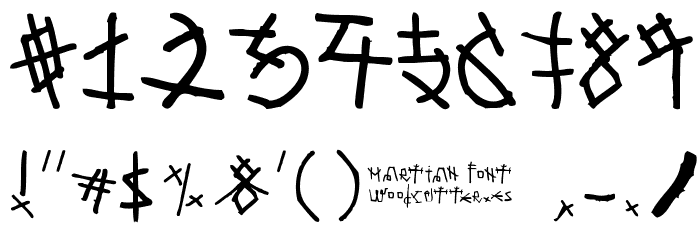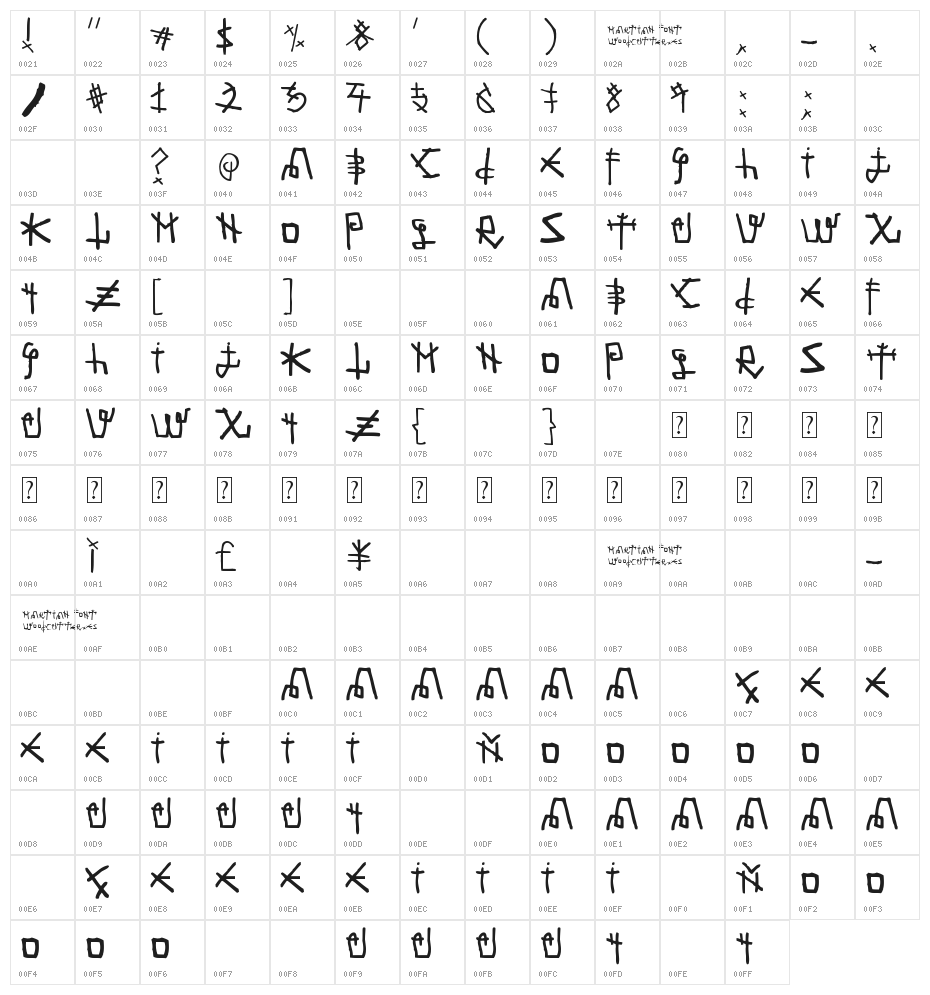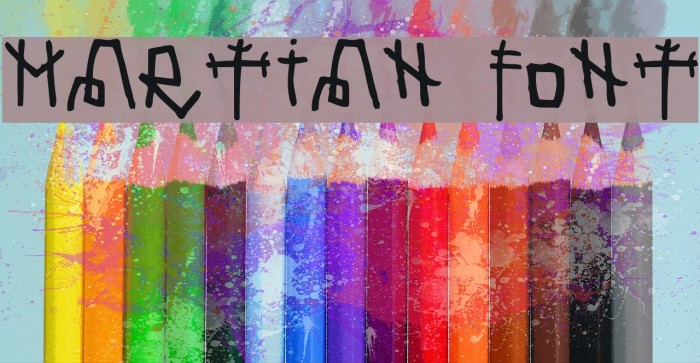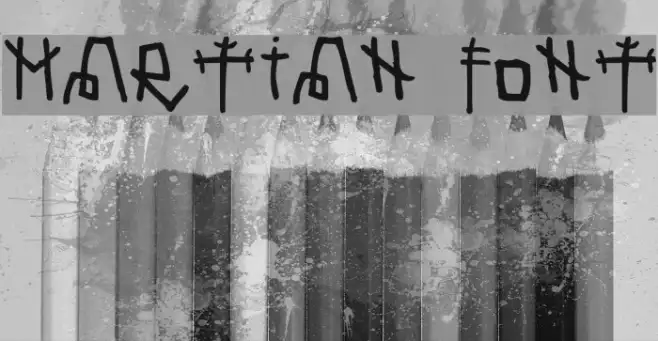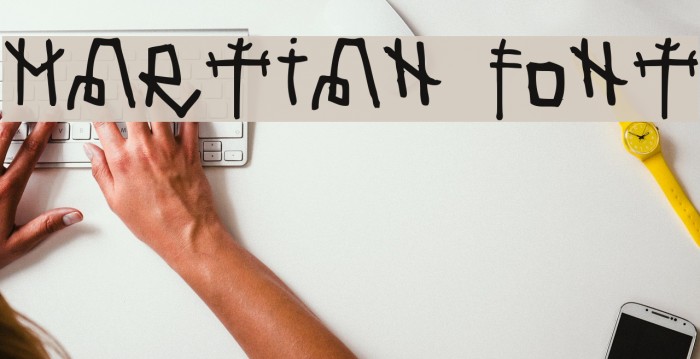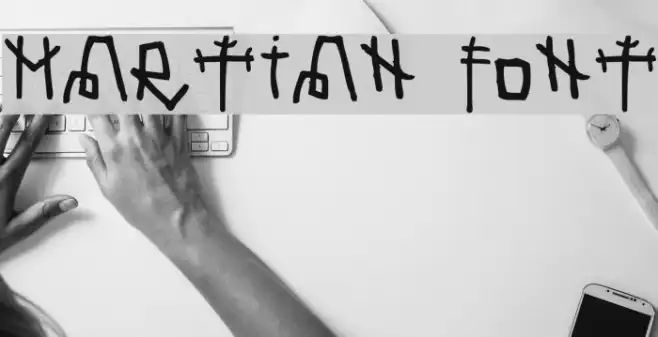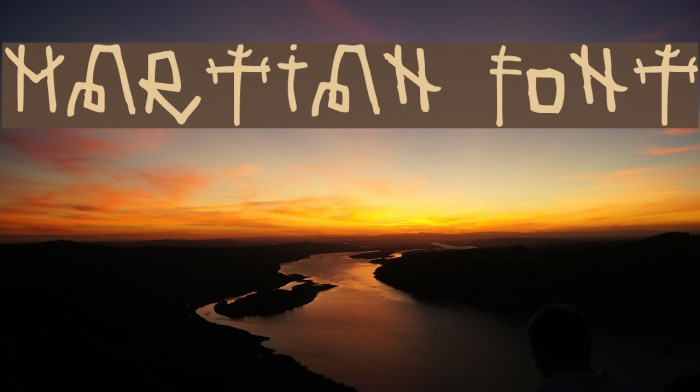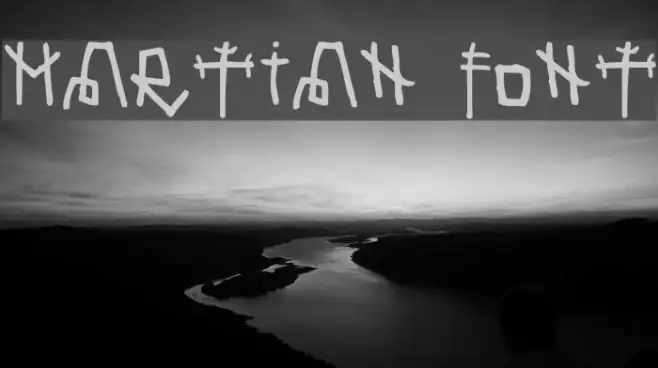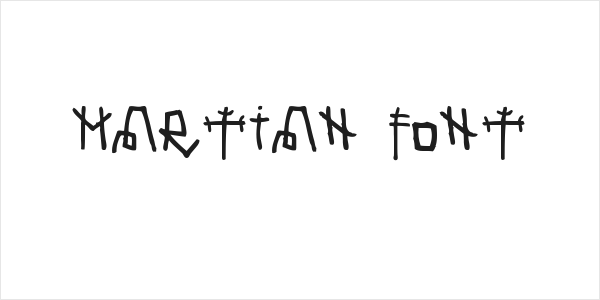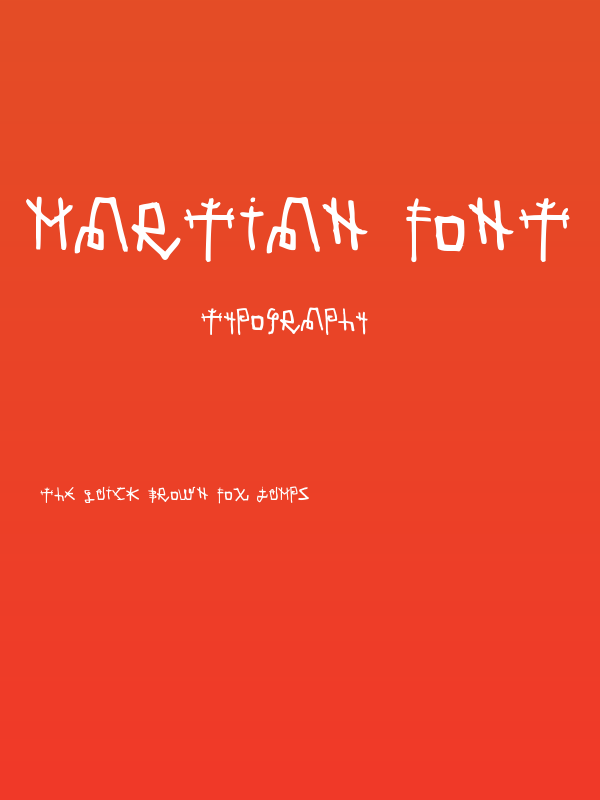
Martian Font Font
Martian Font Description
This font features a highly decorative and abstract style, reminiscent of alien or extraterrestrial scripts. The characters are composed of bold, irregular strokes with a hand-drawn appearance, giving it a unique and otherworldly aesthetic. Each letter and symbol is distinct, with angular and curved elements that create a sense of mystery and intrigue. The font is designed to capture attention and evoke a sense of the unknown, making it ideal for creative and unconventional projects. Its playful yet cryptic nature makes it stand out, offering a fresh take on typographic design.